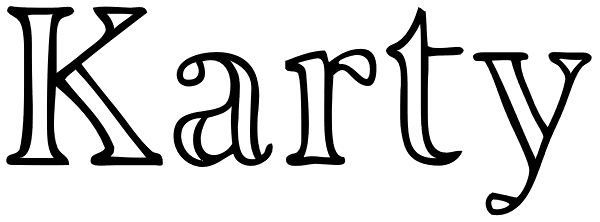
Karty
Karty is an outline freehand typeface that was inspired by John Baskerville’s designs. Karty comes in two version: Outline and Shadow fonts, including a large set of swashes, ligatures and stylistic alternatives, which bring the chance to create...
Karty Shadow
Karty